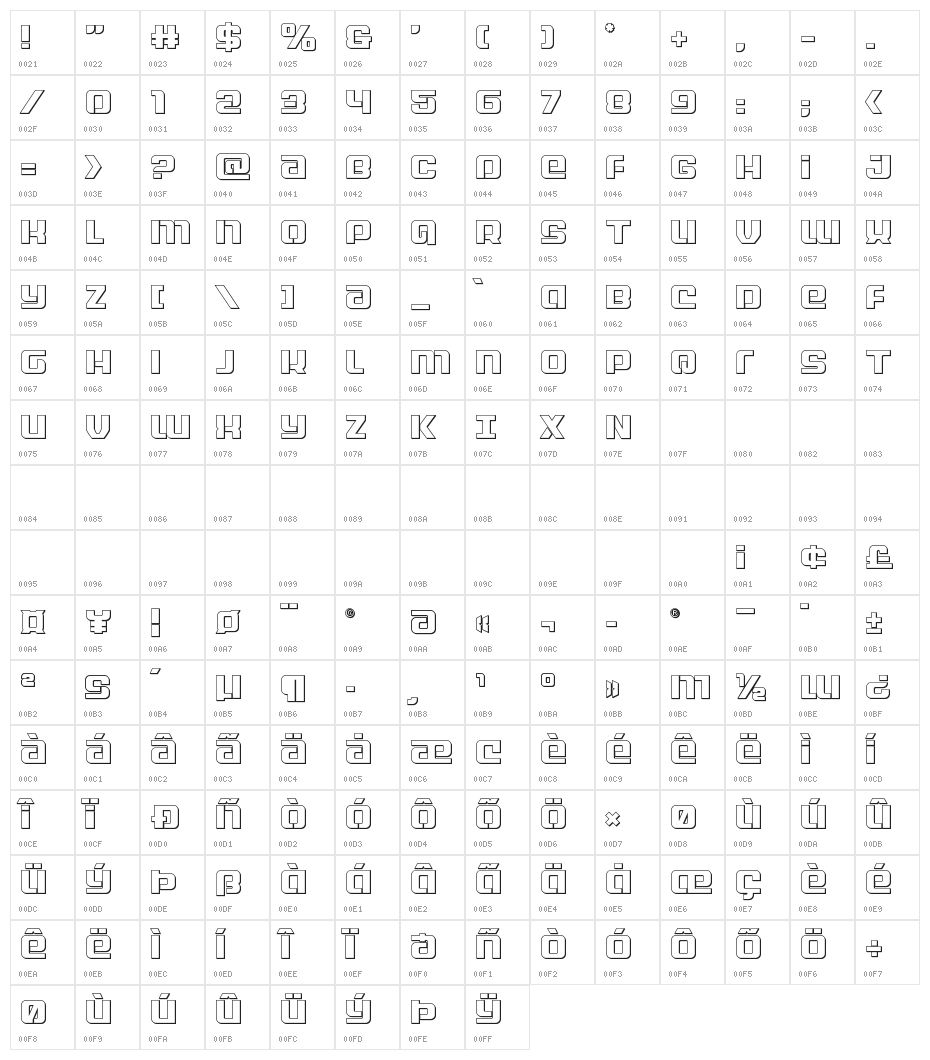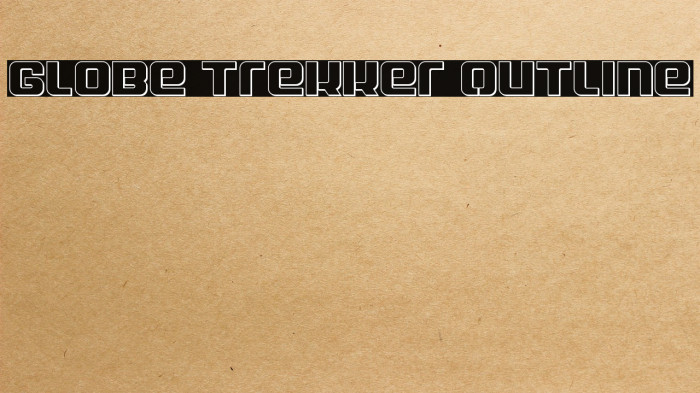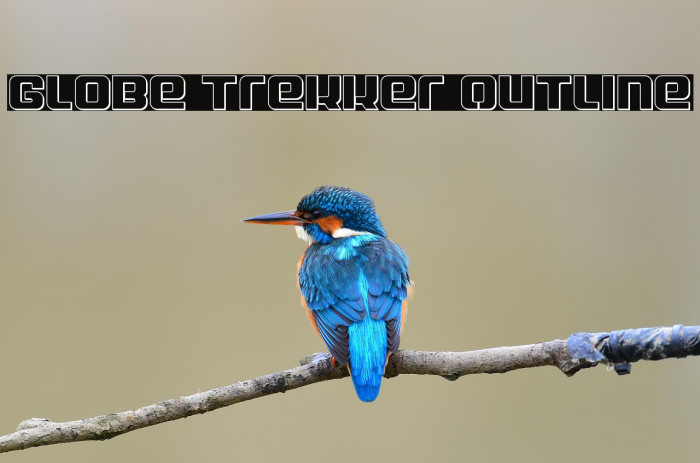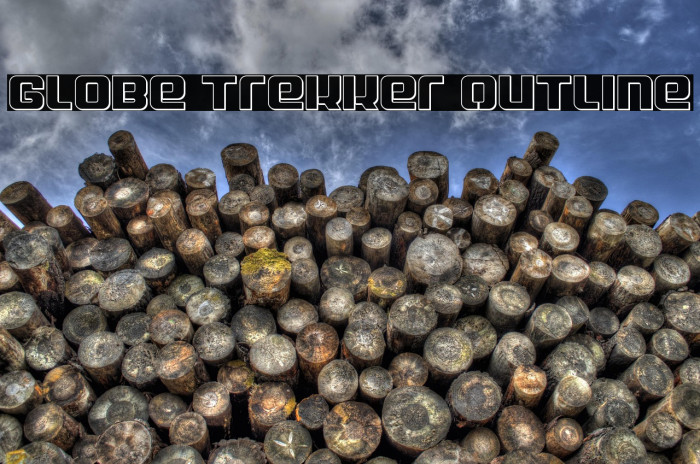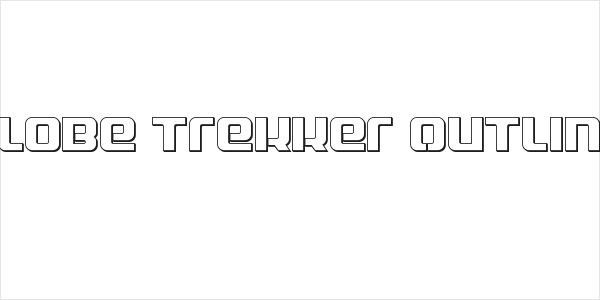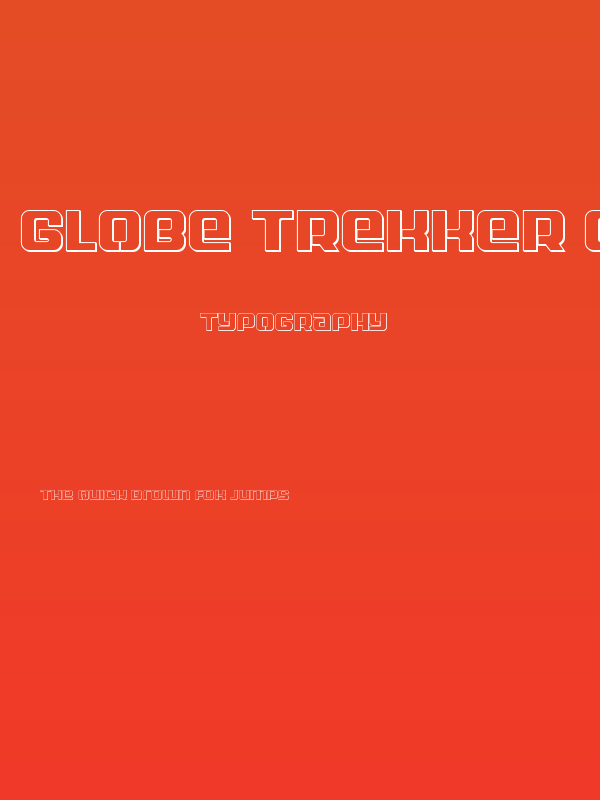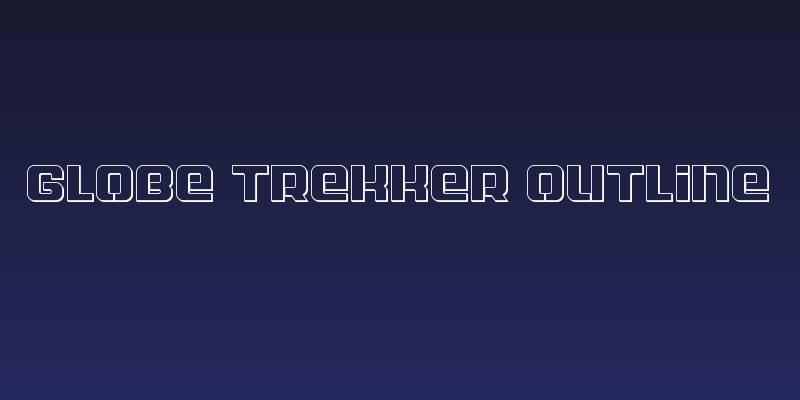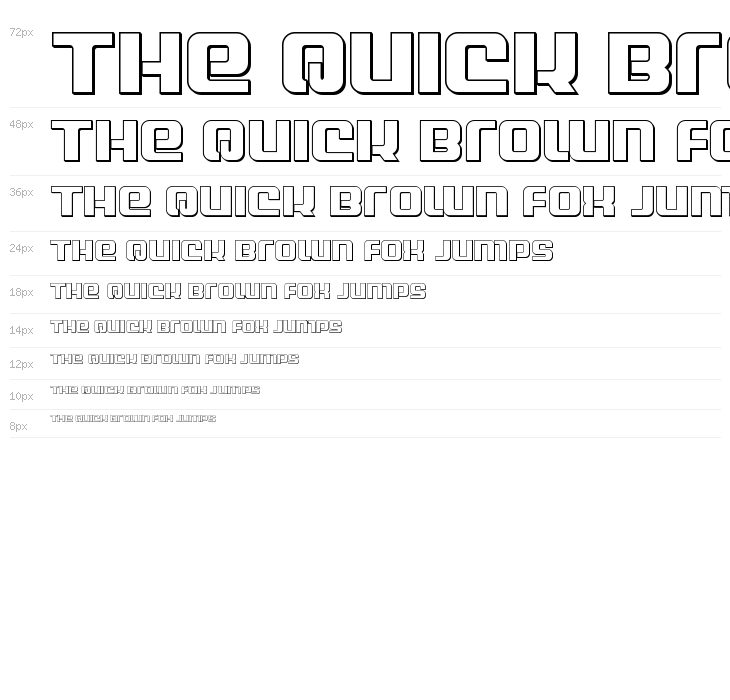
Globe Trekker Outline Font
Globe Trekker Outline Description
This font features a bold, geometric outline style that gives it a modern and futuristic appearance. The characters are constructed with clean lines and sharp angles, creating a sense of precision and clarity. The uppercase and lowercase letters share a consistent design, maintaining uniformity across the typeface. The numerals and special characters are equally well-defined, ensuring readability and versatility. This font's outline nature makes it ideal for creating striking visual effects, as it allows for creative use of background colors and textures within the letterforms.